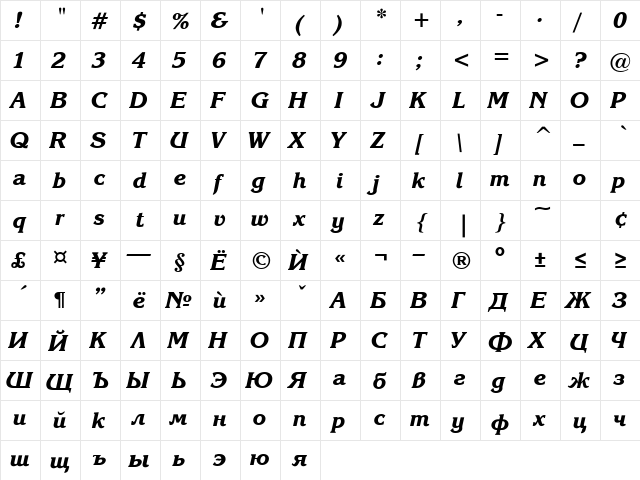
KarinaBlack Italic Font Preview
KarinaBlack Italic
Design Context for KarinaBlack Typeface
KarinaBlack takes a measured approach to typography — its balanced proportions and neutral character make it a reliable workhorse for both digital and print work. Its italic angle brings a sense of urgency and motion to the letterforms.
Pro Tip: Try KarinaBlack for annotation and caption copy alongside an upright companion — the contrast in angle creates a dynamic but ordered typographic system.